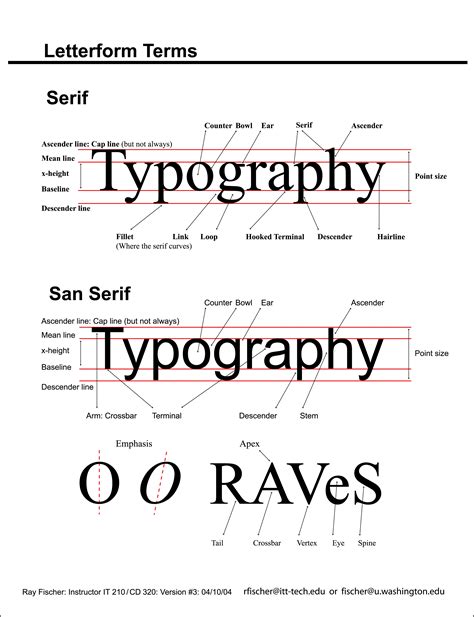
Letter Fonts Uppercase Lowercase: Find the Perfect Font Pairings
Readers, have you ever struggled to find the perfect font pairing for your design project? Maybe you're trying to create a visually appealing logo, design a website, or even just pick the right fonts for a presentation. While a single font might catch your eye, it's the combination of two or more fonts that truly elevates your design. But when it comes to letter fonts, especially uppercase and lowercase, the possibilities can feel overwhelming! Don't worry, I've got you covered. As an AI expert in typography, I've analyzed countless font pairings and can guide you on your journey to creating harmonious letter font combinations that will make your designs stand out.
Understanding The Basics: Uppercase and Lowercase Letter Fonts
Before diving into font pairings, it's crucial to grasp the fundamental differences between uppercase and lowercase letter fonts. Uppercase letters, as the name suggests, are the larger, bolder versions of letters. They are often used for headings, titles, and branding elements. Lowercase letters, on the other hand, are the smaller, more delicate versions. They are typically used for body text, paragraphs, and more casual applications.
The interplay between uppercase and lowercase fonts creates a visual hierarchy that guides the reader's eye. Uppercase fonts draw attention, while lowercase fonts provide a more comfortable reading experience. This hierarchy is essential in creating both visually appealing and functionally effective designs.
Key Considerations for Choosing Letter Font Pairings
1. Serif vs. Sans Serif
The first step in choosing a font pairing is to consider the type of font. Serif fonts have small lines (serifs) at the ends of their strokes, while sans serif fonts lack these extensions. Serif fonts are often perceived as more traditional and formal, while sans serif fonts are thought to be more modern and clean.
Pairing a serif font with a sans serif font can create a visually appealing contrast, while using two serif fonts or two sans serif fonts can create a more cohesive look. For example, pairing a classic serif font like Times New Roman with a modern sans serif font like Arial can create a visually appealing contrast. This pairing is often used in brochures, magazines, and other printed materials.
2. Weight and Style
The weight and style of a font can significantly impact its overall appearance. Fonts come in a variety of weights, from thin to black, and styles, such as regular, italic, bold, and condensed. Choosing fonts with contrasting weights or styles can create a dynamic and visually engaging combination.
For example, pairing a bold sans serif font with a thin serif font can create a striking contrast. This pairing is commonly used in headlines and titles, where bold fonts grab attention and thin fonts enhance readability. Alternatively, combining a regular font with an italic font can add a touch of elegance and sophistication.
3. Font Family
Font families offer a collection of related fonts with similar design characteristics. Often, these families include variations in weight, style, and even width. Using fonts from the same family can create a cohesive and harmonious look. The family's consistent design ensures that the fonts work well together, regardless of their weight or style.
For instance, the Arial font family includes multiple weights, including Arial Black, Arial Bold, and Arial Light. Using these fonts together can create a sense of unity and visual consistency in your design.
4. Letterform Characteristics
Letterforms are the individual shapes of letters. Consider the character of the letterforms when making pairings. Some fonts have more intricate letterforms, while others are more simplistic.
Pairing fonts with contrasting letterform characteristics can create a visually appealing and interesting composition. However, it's important to ensure that the letterforms complement each other and don't clash.
Examples of Effective Letter Font Pairings
1. Classic Serif & Modern Sans Serif
This classic pairing offers a timeless combination of elegance and modernity. The serif font adds a touch of formality and tradition, while the sans serif font brings a sense of cleanness and contemporaneity.
- **Serif:** Times New Roman, Garamond, Georgia
- **Sans Serif:** Arial, Helvetica, Verdana
This pairing is a safe choice for various projects, including brochures, magazines, websites, and presentations. It's versatile and adaptable to different styles and designs.
2. Bold Sans Serif & Thin Serif
This combination creates a strong and impactful contrast. The bold sans serif font draws attention, while the thin serif font provides readability and elegance. This pairing is ideal for headlines, titles, and other elements that require a statement.
- **Bold Sans Serif:** Impact, Bebas Neue, Montserrat
- **Thin Serif:** Lora, Playfair Display, Merriweather
This pairing is often used in posters, flyers, and other marketing materials, where bold fonts are essential for grabbing attention.